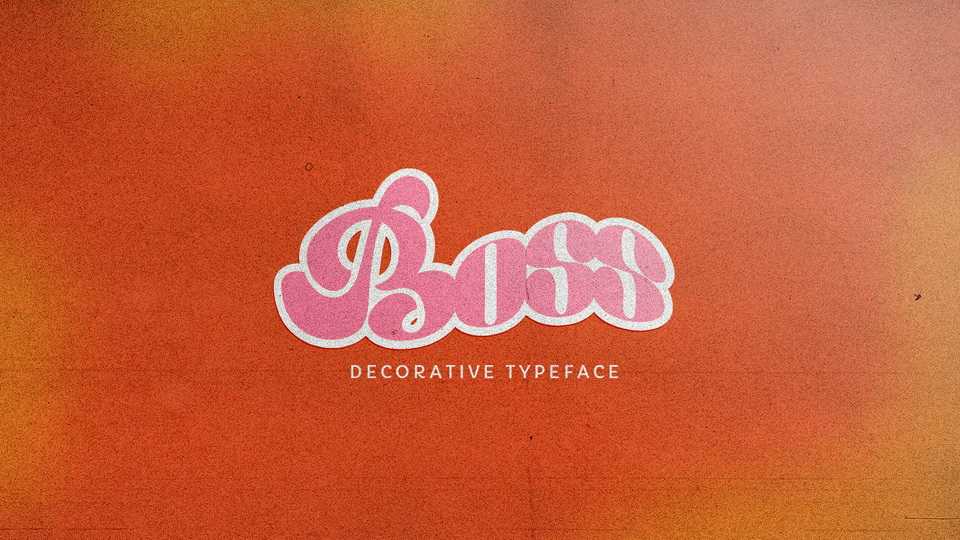
Download Boss font, a catchy and groovy vintage typeface inspired the fun aesthetic of the 60s and 70s. Boss is perfect for logos,t-shirt, poster, branding, packaging, signage, movie covers and album artworks.